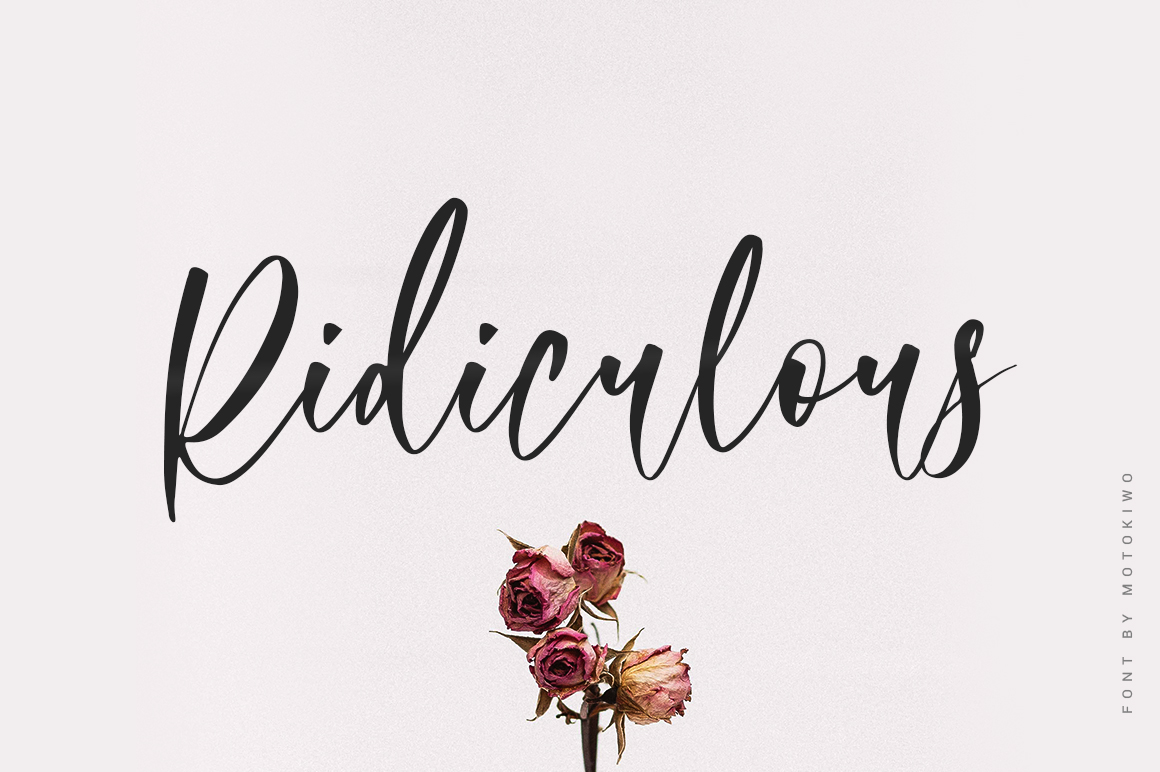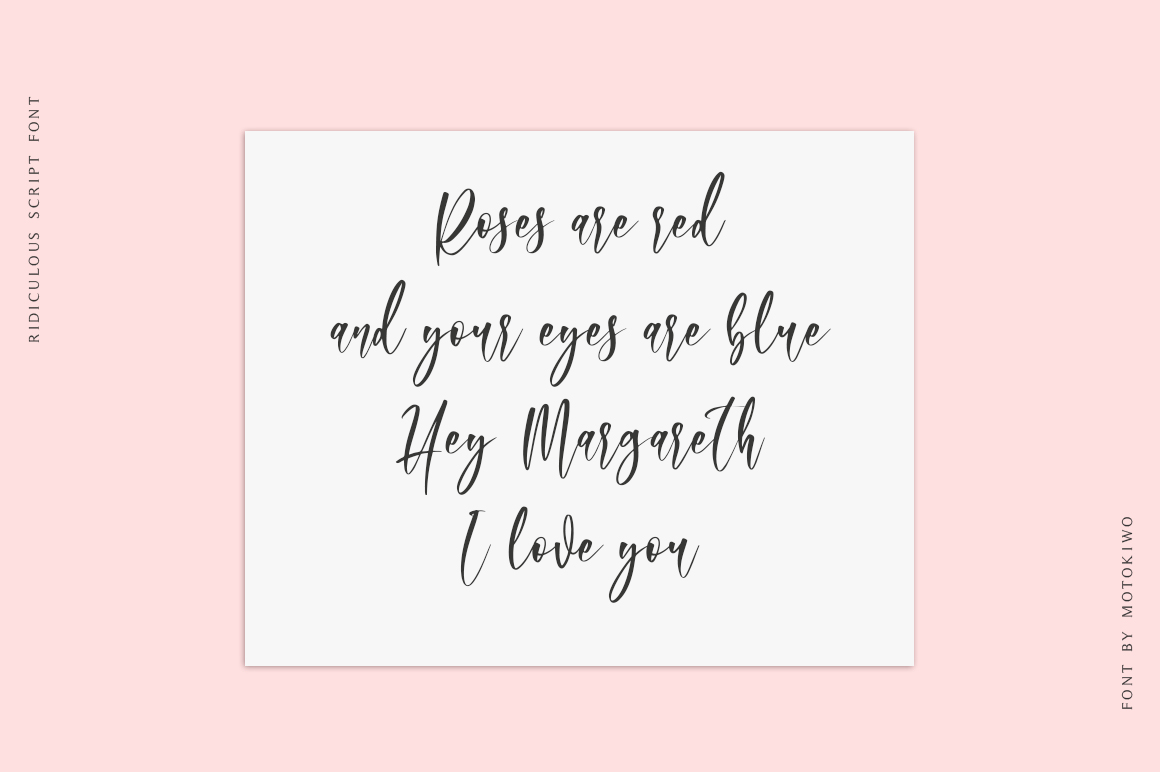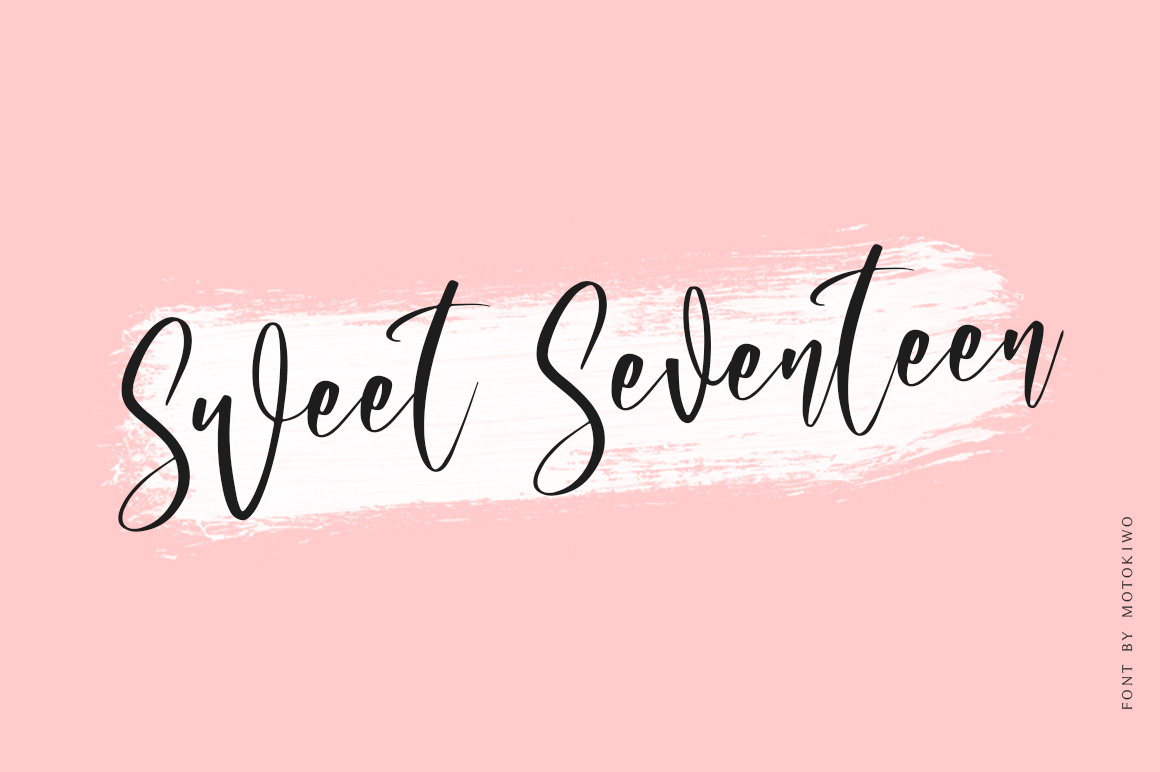
Ridiculous, Romantic Script
Ridiculous, a lovely modern calligraphy font with romantic flow. It’s bouncy, beautiful, and flexible script font that recommended for wedding and sweet projects.